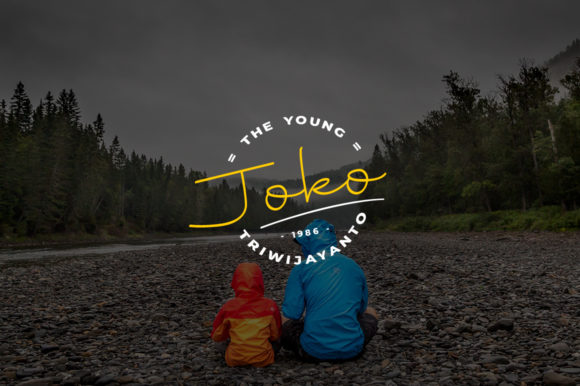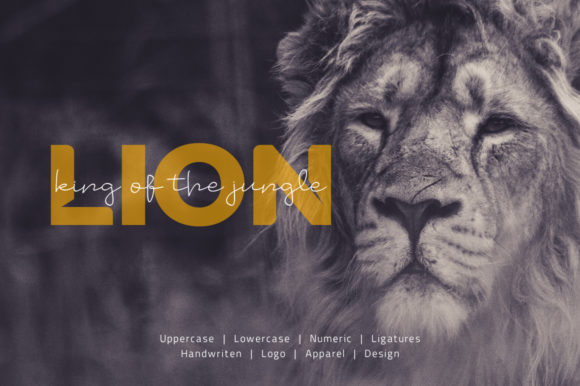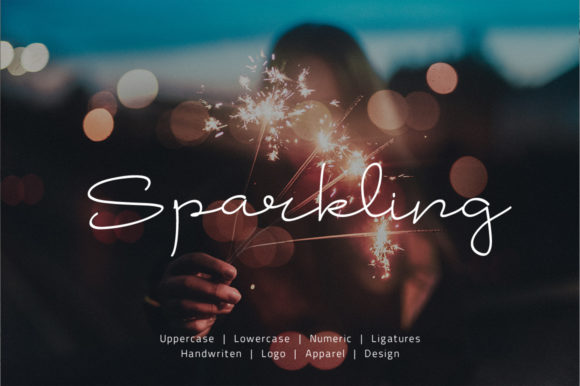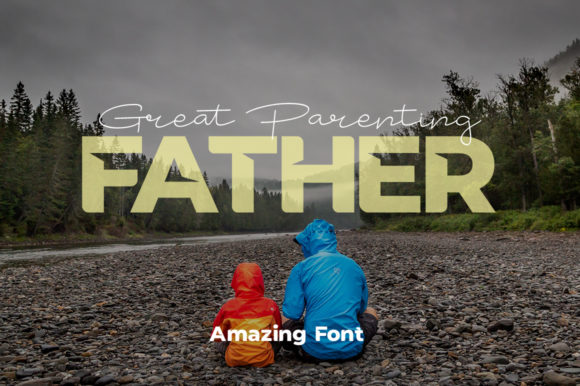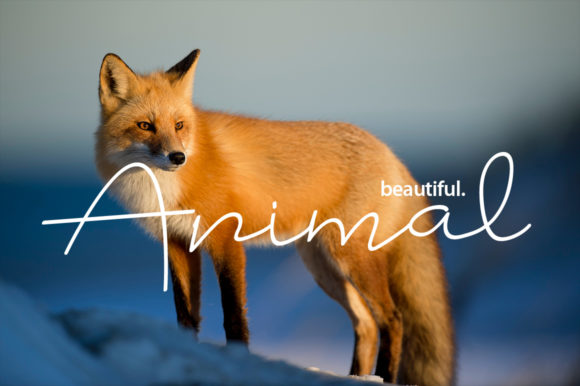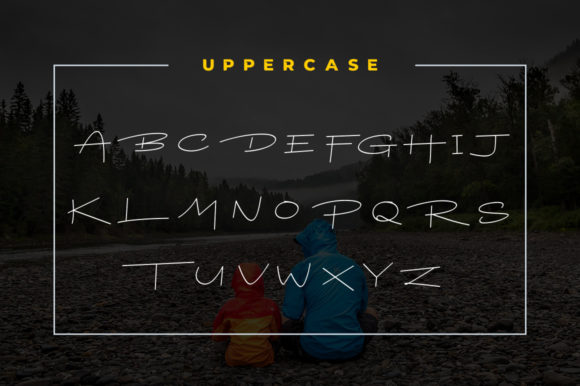
The Perfect Brushstroke: Unlocking the Charm of Badrudin Font
Have you ever been stuck in a creative rut, yearning for that perfect brushstroke to bring your design to life? We’ve all been there – pouring over fonts, trying to find that elusive spark that sets our work apart. For designers seeking to add a touch of authenticity and whimsy to their projects, we’ve discovered a hidden gem that’s sure to captivate: the wonderfully unique handwritten font, Badrudin.
Badrudin Font is designed to effortlessly put an authentic spin on any design idea, from elegant wedding invitations to playful social media graphics. Its organic, handcrafted feel makes it an invaluable addition to any designer’s toolkit, allowing them to inject a touch of personality and character into their work. Whether you’re a seasoned pro or just starting out, Badrudin Font is sure to become a trusted companion in your creative journey.
- Font Family: Badrudin, with 6 styles: Regular, Bold, Italic, Bold Italic, Condensed, and Condensed Bold
- Character Set: Supports a wide range of languages, including Latin, Cyrillic, and Arabic scripts
- Unique Characteristics: Features a unique, modern design with a blend of traditional and digital influences, making it suitable for a wide range of applications, from body text to display headings
I recently had the chance to work with the Badrudin Font, and I must say it’s a unique and intriguing addition to my design toolkit. ✨
Here are some of the things that stood out to me:
- Distinctive character**: The Badrudin Font has a distinct, handmade feel that adds a touch of personality to any design.
- Excellent legibility**: Despite its ornate appearance, the font is surprisingly easy to read, making it perfect for body text or titles.
- Highly customizable**: With a range of weights and styles available, you can tailor the font to fit your specific design needs.
However, there are some limitations to be aware of:
- Limited support**: Some users may experience issues with font rendering or compatibility in certain software or browsers.
- Not ideal for small text**: Due to its intricate design, the font may not be the best choice for small text sizes, where the details can get lost.
- Not suitable for formal designs**: The Badrudin Font’s playful, handwritten feel may not be the best fit for formal or corporate designs.
Overall, I think the Badrudin Font is a great addition to any designer’s toolkit, but it’s not without its limitations. With careful consideration and planning, it can add a unique touch to your designs. ⚠️
Use Badrudin Font for creative projects that require a unique and elegant touch, such as:
1. Invitations and event branding.
2. Logos and brand identities.
3. Book covers and publishing materials.
Tips: Experiment with different font sizes, colors, and styles to achieve the desired look. Use Badrudin Font in combination with other creative elements to add depth and visual interest to your design.